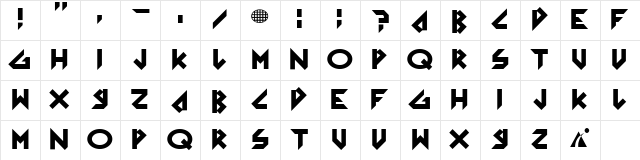
Complete Arkanoid Solid Regular glyph index. Displaying only characters natively supported by Arkanoid Solid Regular font.
Arkanoid Solid is a composed and adaptable typeface that performs quietly and consistently across a wide range of design contexts.